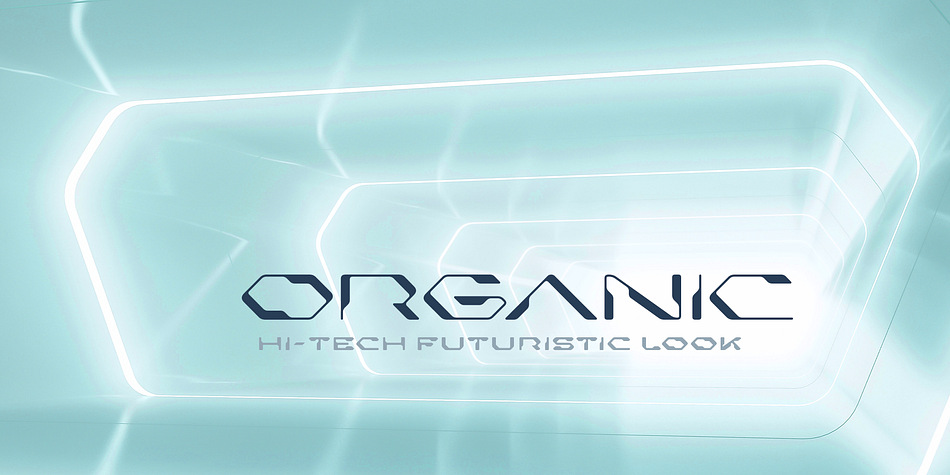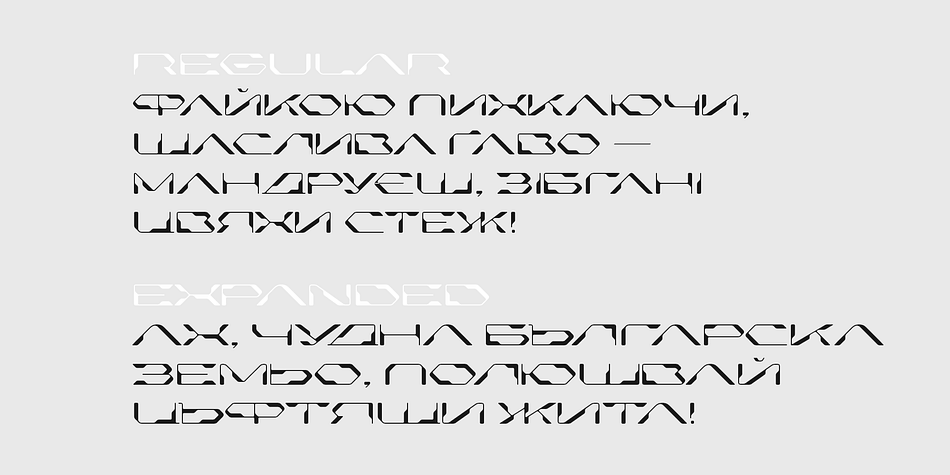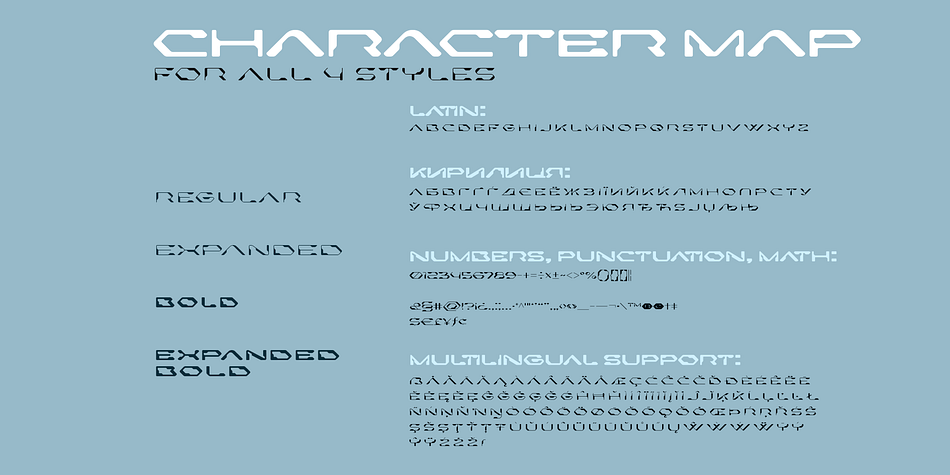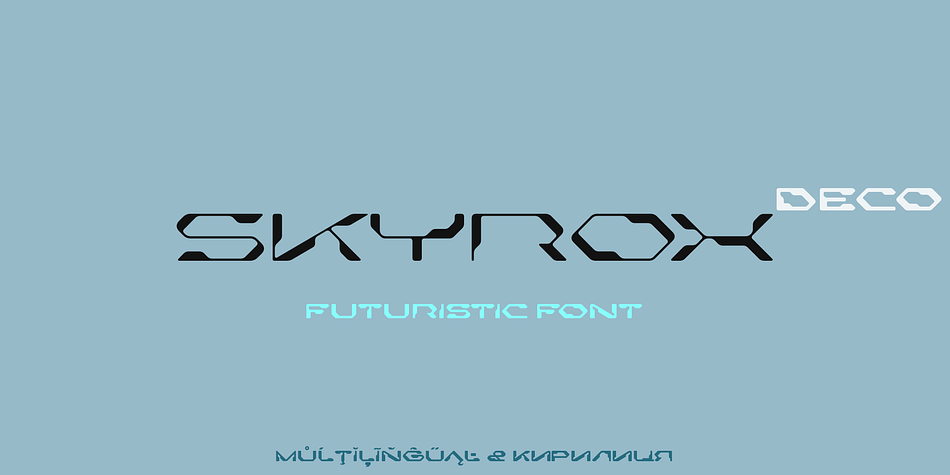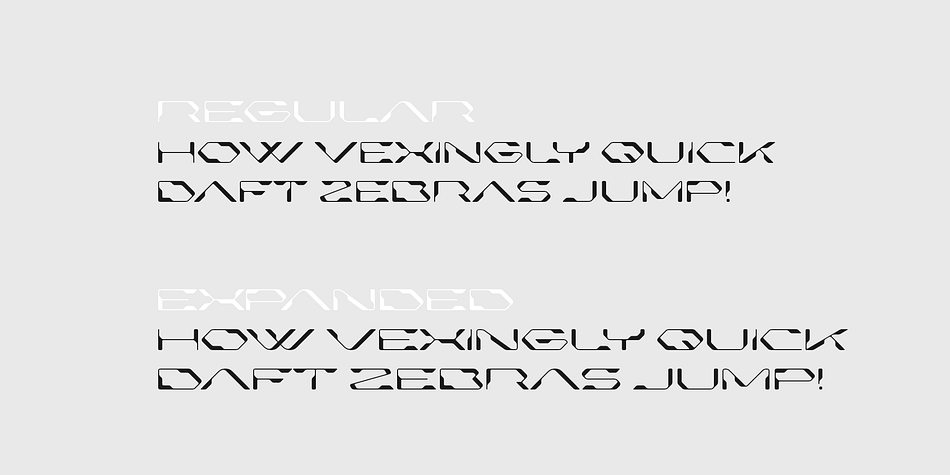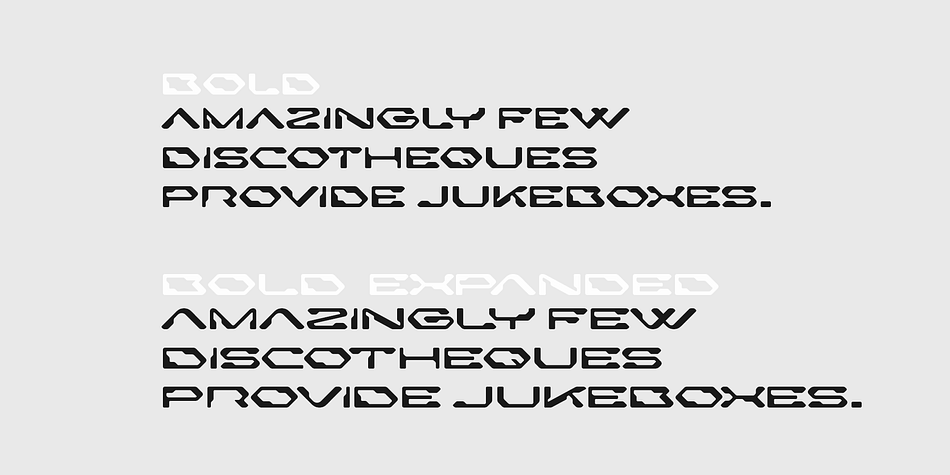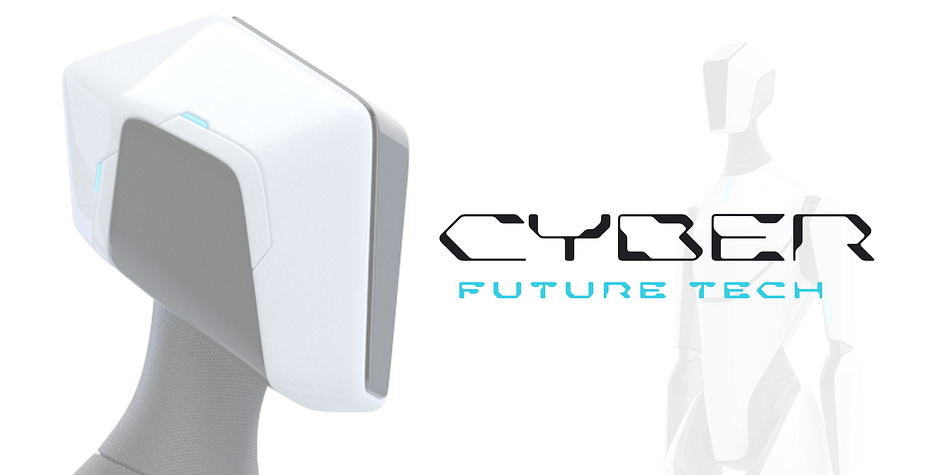
Skyrox Deco
Skyrox Deco is a display sans font family. This typeface has four styles and was published by Sentavio.
Skyrox Deco Font creates modern futuristic hi-tech atmosphere and style.
It consists of 4 styles: Regular & Expanded + Bold & Bold Expanded
Skyrox Deco is good looking as header and as text both. Use it in your projects in such areas as robots & androids, hi-tech, future, virtual reality, space, sport and many others.
It is good looking as header and as text both.
Multilingual support (Latin Pro & Cyrillic).